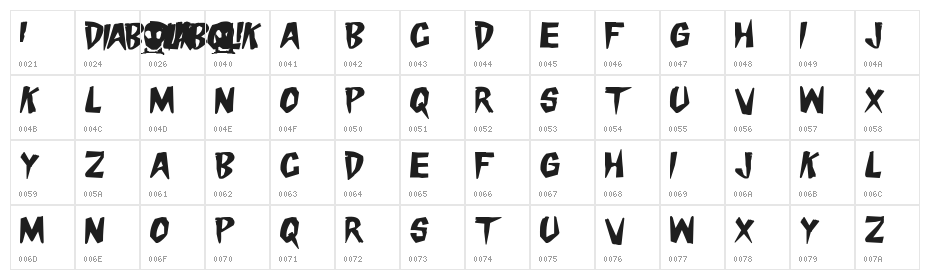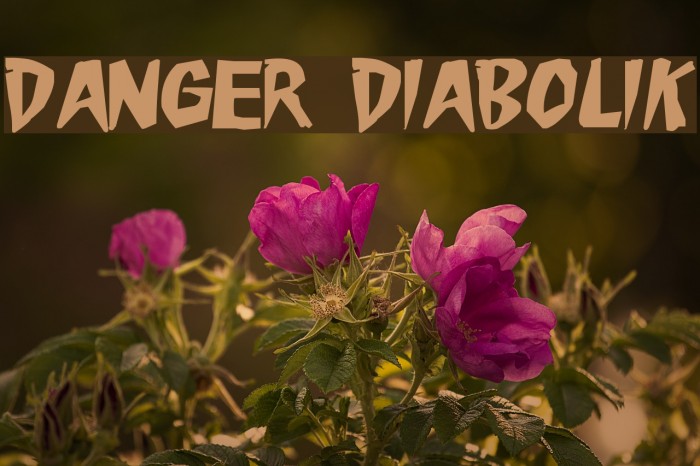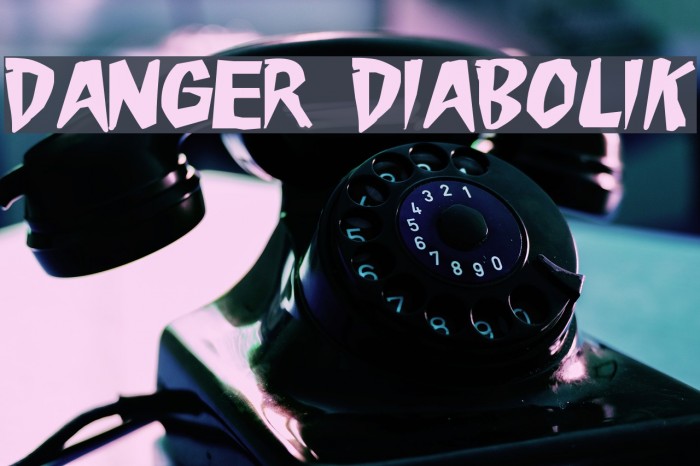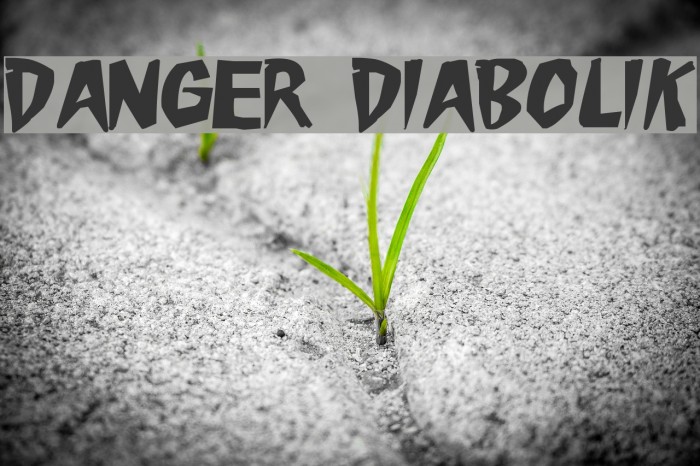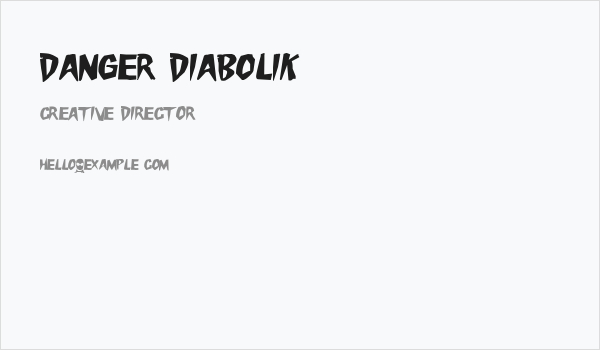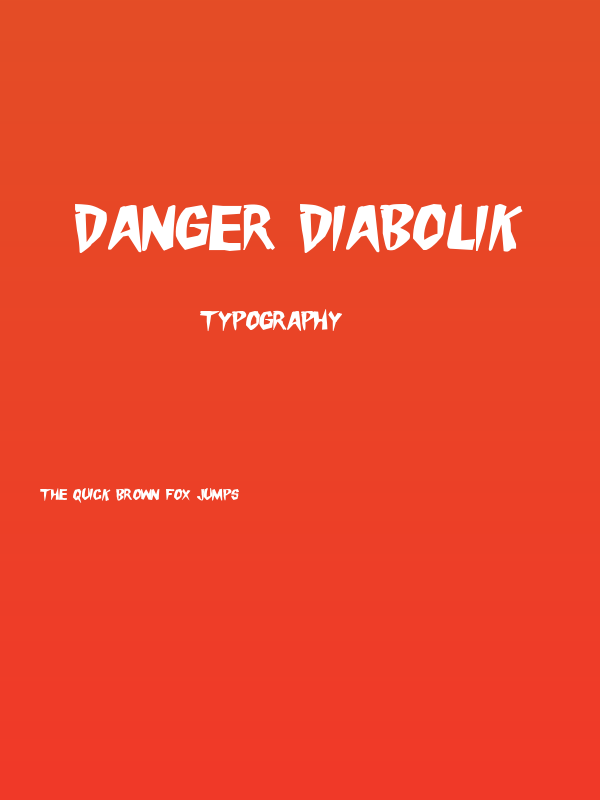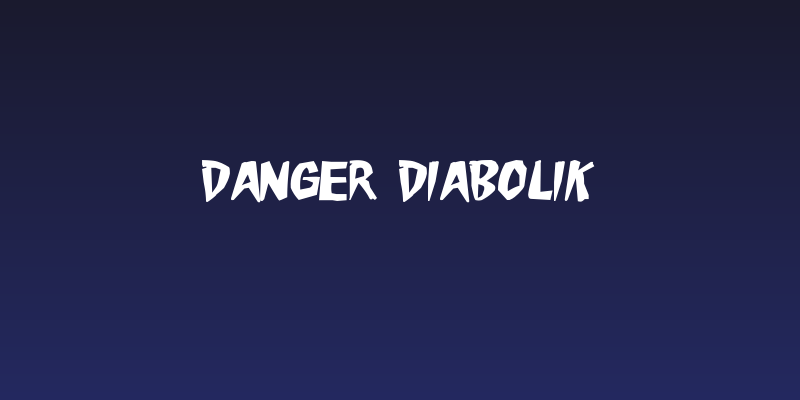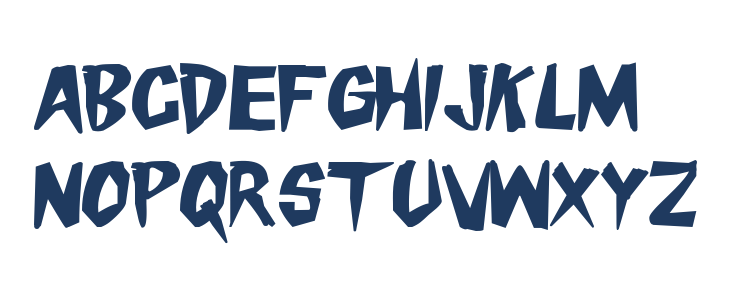
Danger Diabolik Font
Danger Diabolik Description
This font exudes a bold and edgy style, characterized by its sharp, angular lines and dramatic flair. The uppercase letters are particularly striking, with exaggerated points and a sense of movement that suggests action and intensity. The font's design is reminiscent of comic book lettering, making it ideal for projects that require a dynamic and impactful visual presence. Its unique style captures attention and conveys a sense of urgency and excitement, perfect for creative and adventurous themes.
| Overall Style | Modern, Comic |
| Proposed Projects | Ideal for comic book titles, movie posters, video game covers, and edgy branding projects. |